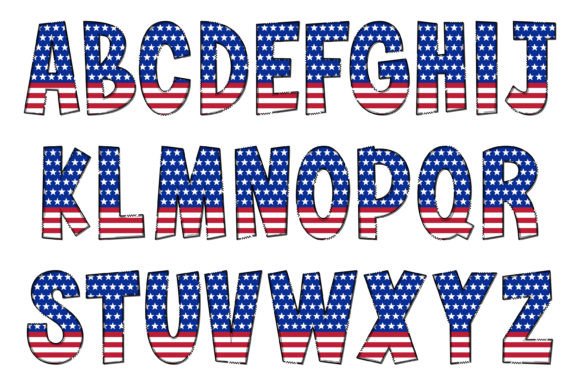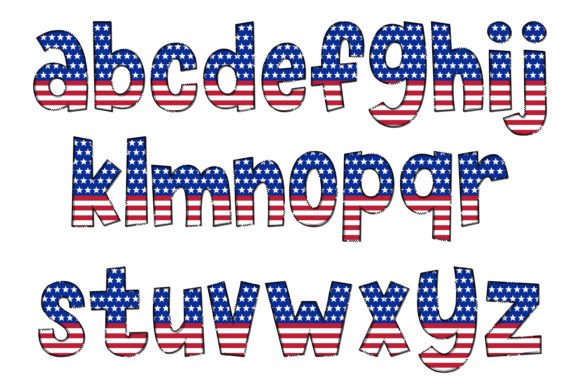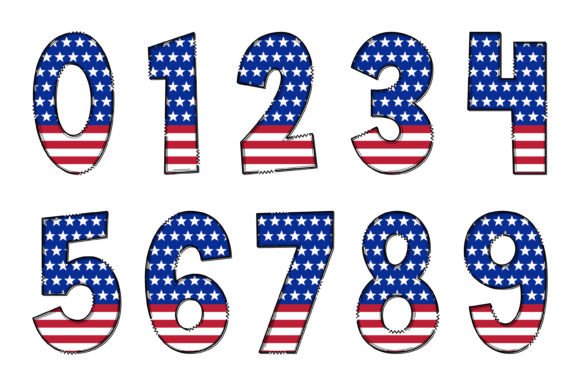
Introducing American Glory Font: A Patriotic Masterpiece
Are you looking for a font that embodies the spirit of America? Look no further than the American Glory font, a lively and spirited color font that pays homage to the American flag. This stunning font is perfect for designers and crafters who want to add a touch of patriotism and pride to their designs.
The Inspiration Behind American Glory
The American Glory font is inspired by the iconic American flag, with its bold and vibrant red, white, and blue letters, stars, and stripes. The font’s design is a beautiful representation of the country’s rich history and symbolism. The bold and vibrant colors evoke a sense of patriotism and pride, making it perfect for Independence Day celebrations, sports events, or any occasion that calls for a touch of American spirit.
Key Features of American Glory Font
- Color Font: American Glory is a color font, which means it comes with multiple colors that can be used to create stunning designs.
- Patriotic Colors: The font features bold and vibrant red, white, and blue colors, which are reminiscent of the American flag.
- Stars and Stripes: The font includes stars and stripes, which add a festive and energetic vibe to your designs.
- Multipurpose: American Glory font can be used for a variety of design projects, including Independence Day celebrations, sports events, and more.
American Glory font is perfect for designers and crafters who want to create stunning designs that showcase their patriotism. The font can be used for a variety of projects, including:
- Independence Day Celebrations: Create stunning designs for Independence Day celebrations, including invitations, posters, and social media graphics.
- Sports Events: Add a touch of American spirit to your sports event designs, including team logos, jerseys, and promotional materials.
- Patriotic Crafts: Use American Glory font to create patriotic crafts, including DIY projects, scrapbooking, and card making.
American Glory font is a stunning and patriotic color font that is perfect for designers and crafters who want to add a touch of American spirit to their designs. With its bold and vibrant colors, stars, and stripes, this font is sure to evoke a sense of patriotism and pride. Whether you’re designing for Independence Day celebrations, sports events, or any other occasion, American Glory font is the perfect choice.